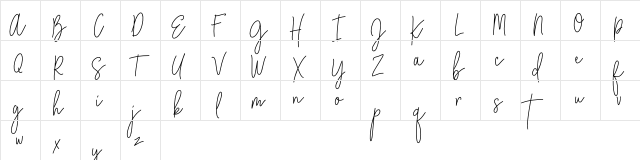
City Streetwear Regular
| Foundry | Cultivated Mind |
| Designer | Cindy Kinash |
Design Context for City Streetwear Typeface
City Streetwear is a composed and adaptable typeface that performs quietly and consistently across a wide range of design contexts.